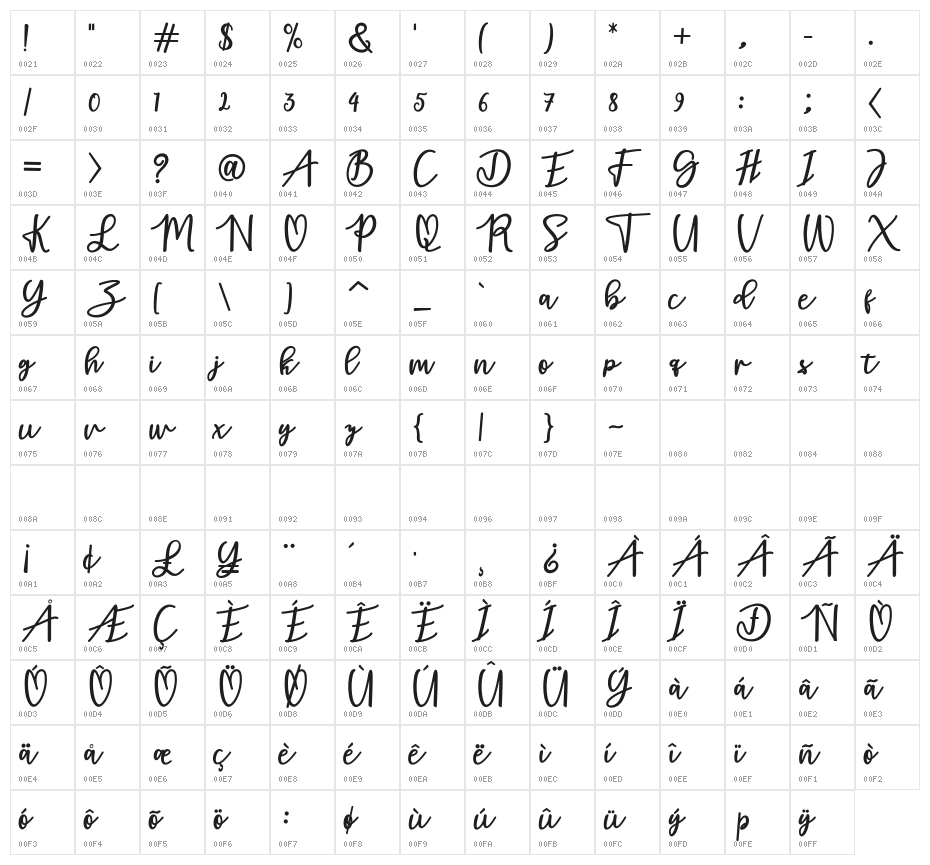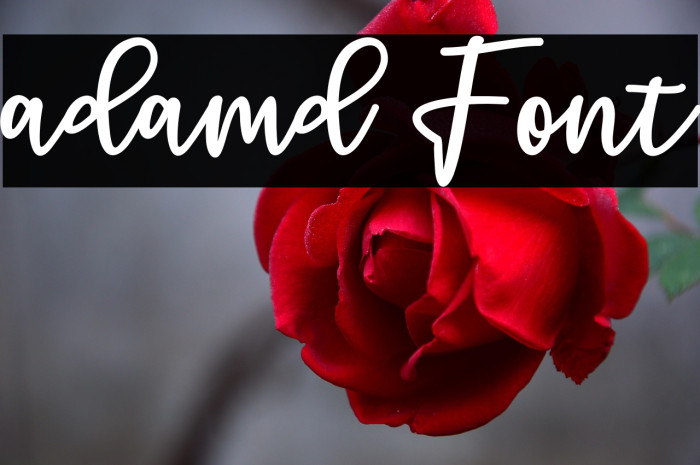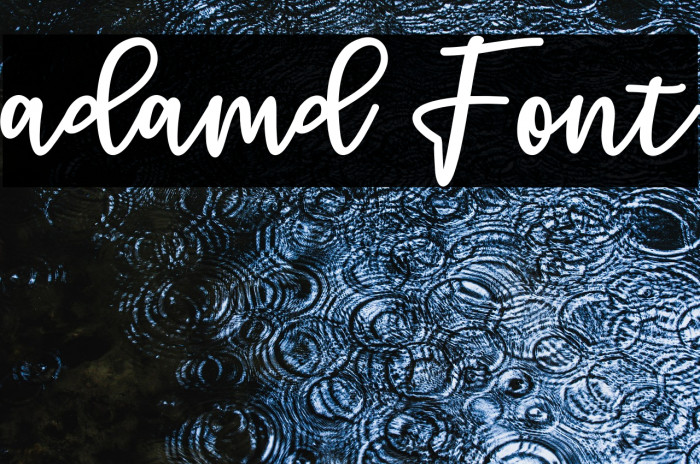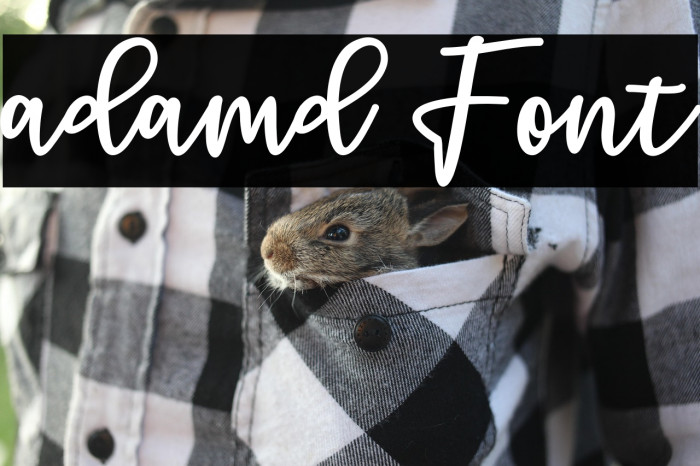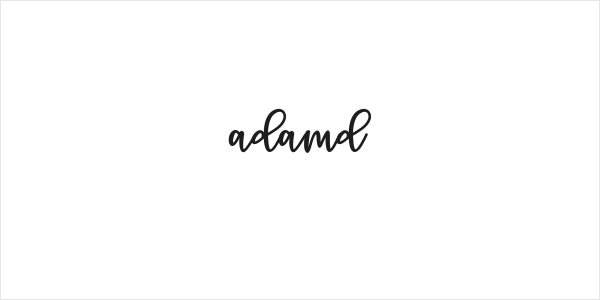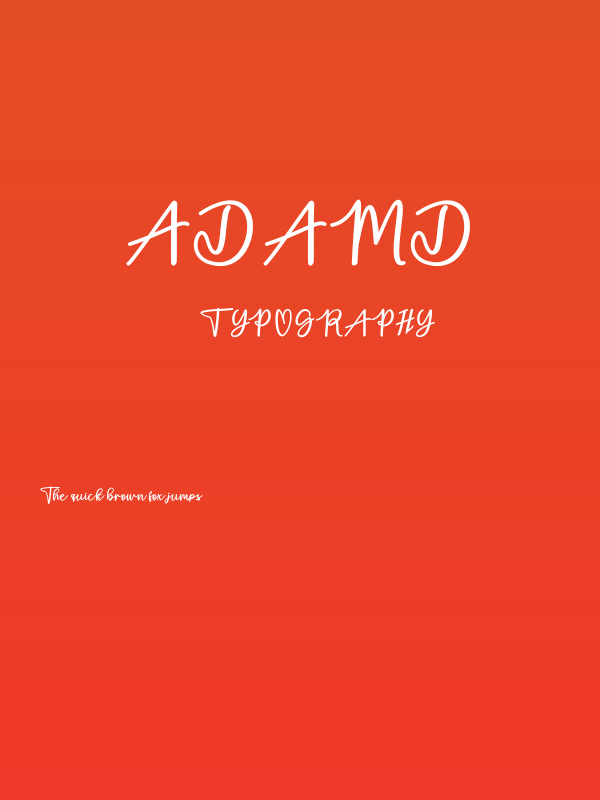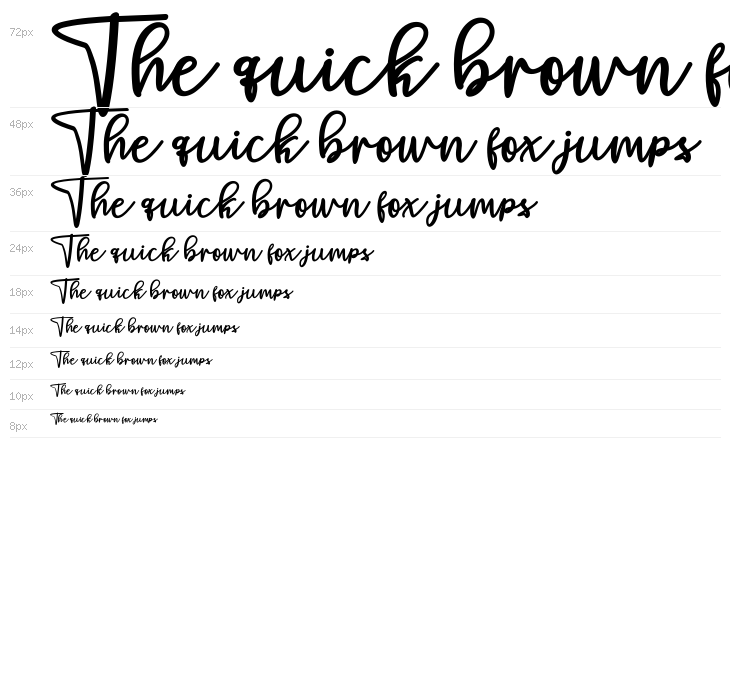
adamd Font
adamd Description
This font features a playful and dynamic script style with a handwritten appearance. The uppercase letters are elegantly curved, with a slight slant that adds a sense of motion and fluidity. The lowercase letters are bold and rounded, providing a strong visual impact. The numbers and special characters maintain the same lively and expressive style, making them cohesive with the rest of the font. The overall design is both casual and sophisticated, suitable for a variety of creative applications.
| Use Case | Logos, Headlines, Invitations |
| Proposed Projects | Ideal for greeting cards, invitations, branding, and social media graphics. |